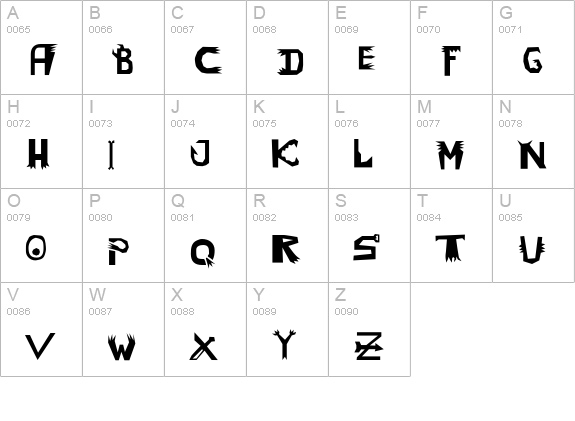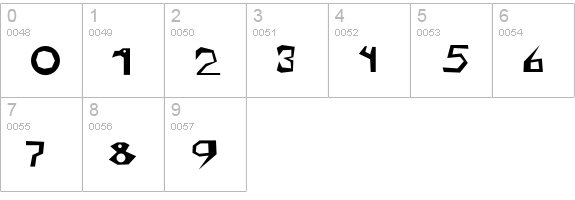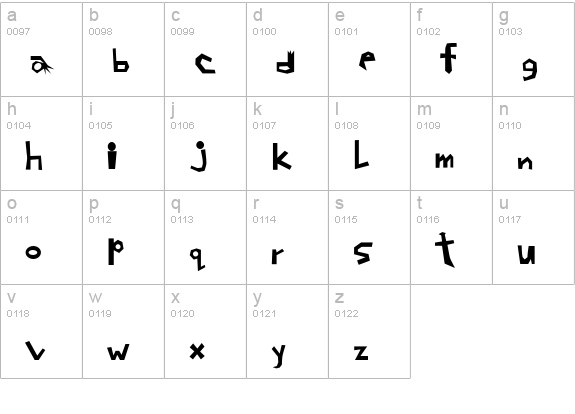
ProbbariusC Font Details
The ProbbariusC font is a stylish and modern typeface that exudes elegance and sophistication. With its sleek lines and unique design, ProbbariusC is perfect for a wide range of design projects, from branding to editorial work. This versatile font is sure to make your text stand out and capture the attention of your audience. What makes ProbbariusC even more appealing is that it is available for free download at FontsMarket.com. This means you can easily access this stunning font and use it in your projects without any cost. Don't miss out on the opportunity to elevate your designs with the sleek and contemporary ProbbariusC font - download it for free today!